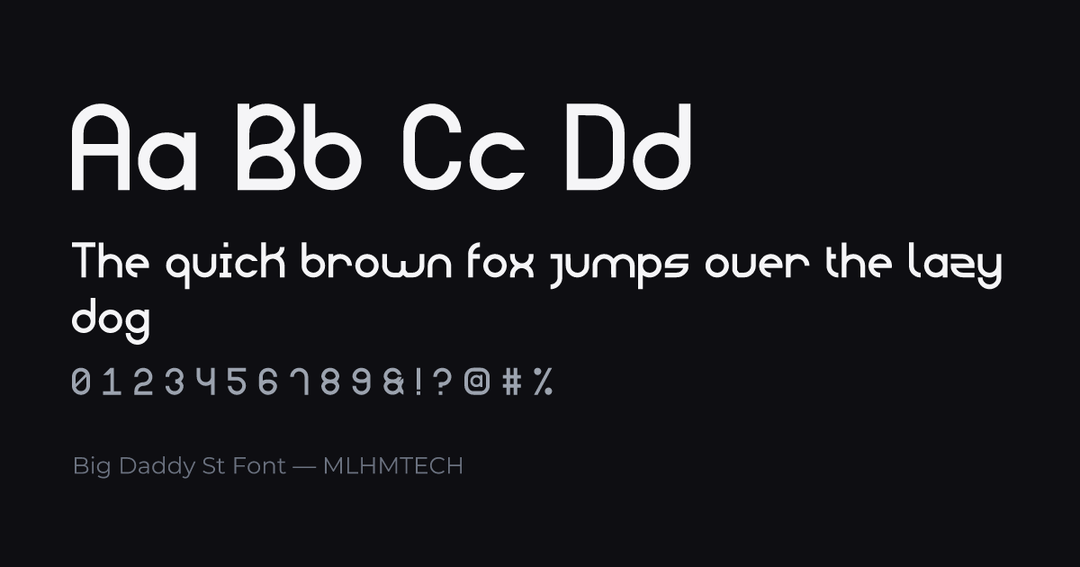
Big Daddy St Font
Big Daddy St is a bold, characterful display font ideal for headlines, posters, and branding. Its distinctive style adds personality to any project.
Big Daddy St is a display typeface that exudes confidence and creativity. With its bold strokes and unique letterforms, it's perfect for making a statement in your designs. Whether you're working on a poster, logo, or social media graphic, this font will grab attention.